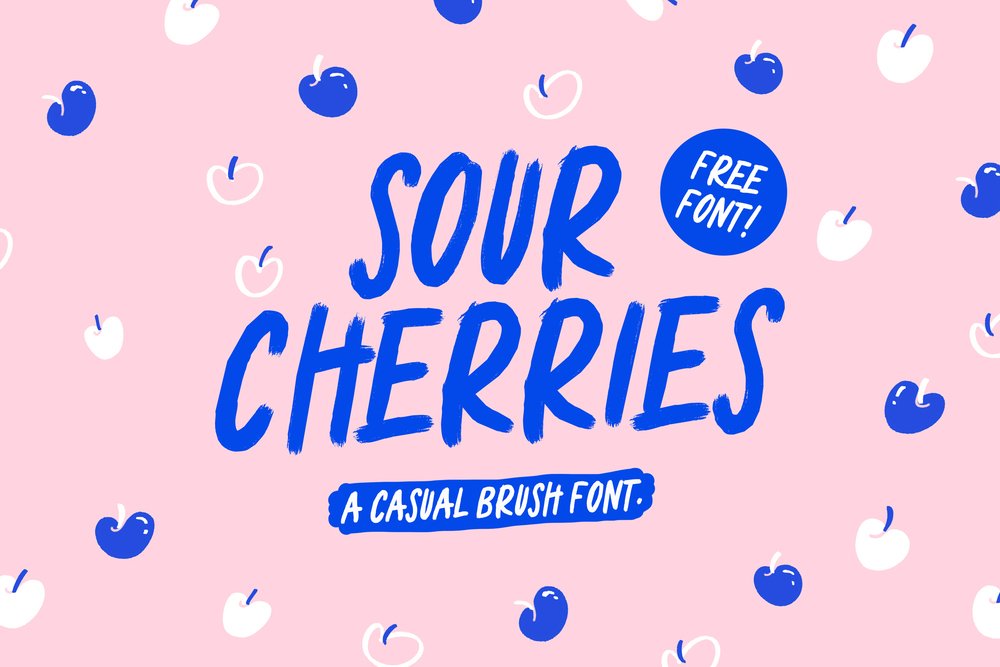
Sour Cherries Brush Font
Great for quotes, call to actions, casual invites and branding, posters, packaging designs, magazines, cookbooks, merchandise, eye-catching headers and so much more.
There are also 6 handy swashes to underline your type in the glyph set - access via an OpenType Panel in Photoshop or Illustrator :)